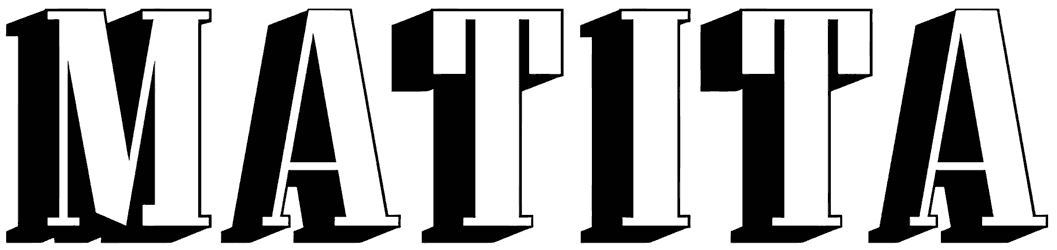
Matita Font
Here we come again with a unique 3D font such as Matita that due to its eye-grabbing style can lead to a sense of classic, spooky, fierce, or tenderness.
Aside from the lack of lowercase letters and numbers, this artwork can level up the quality of your posters, logos, video game brochures, or social media posts. Just in case you require another font similar to this one, we strongly suggest visiting our rich archive.